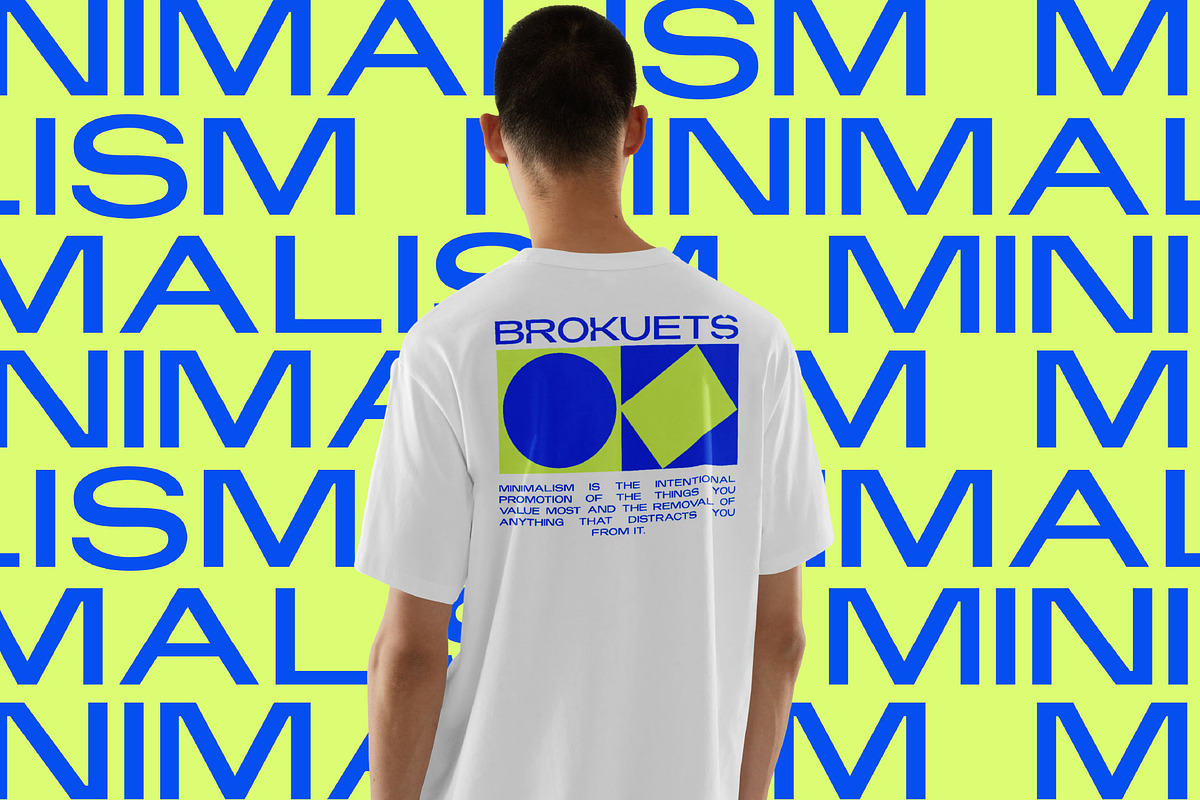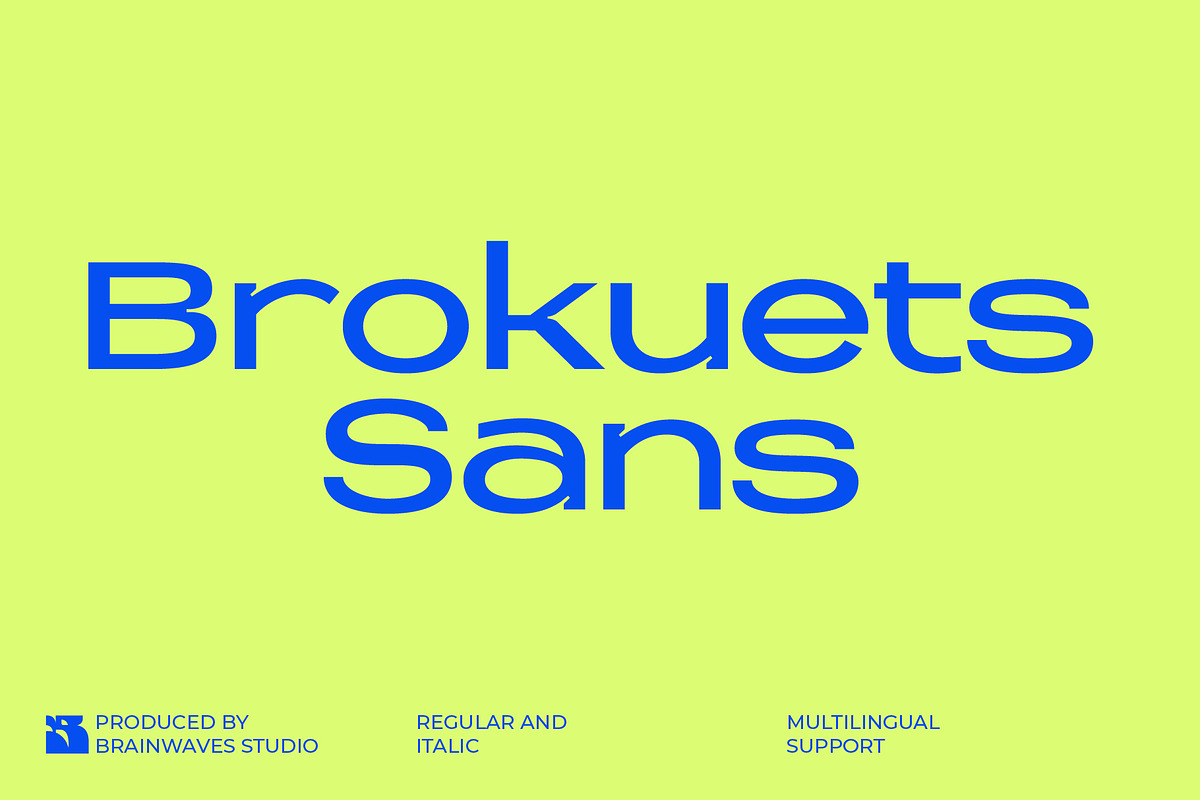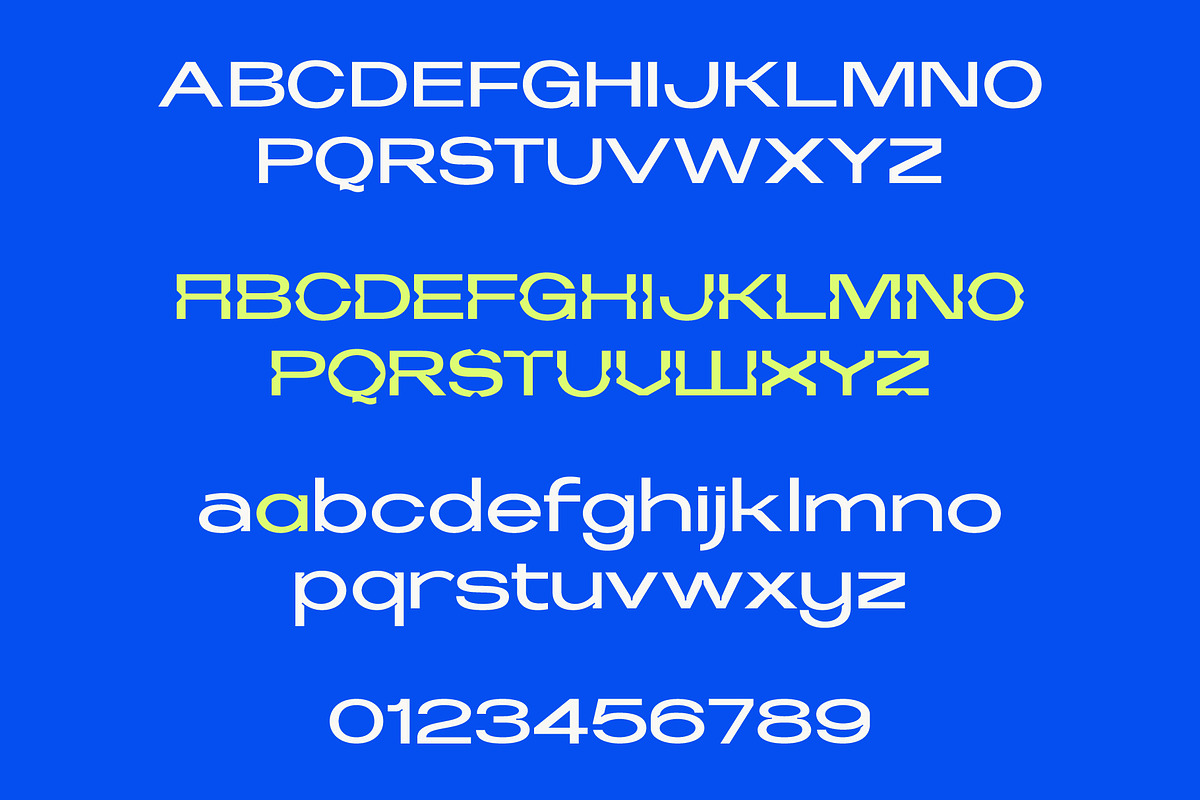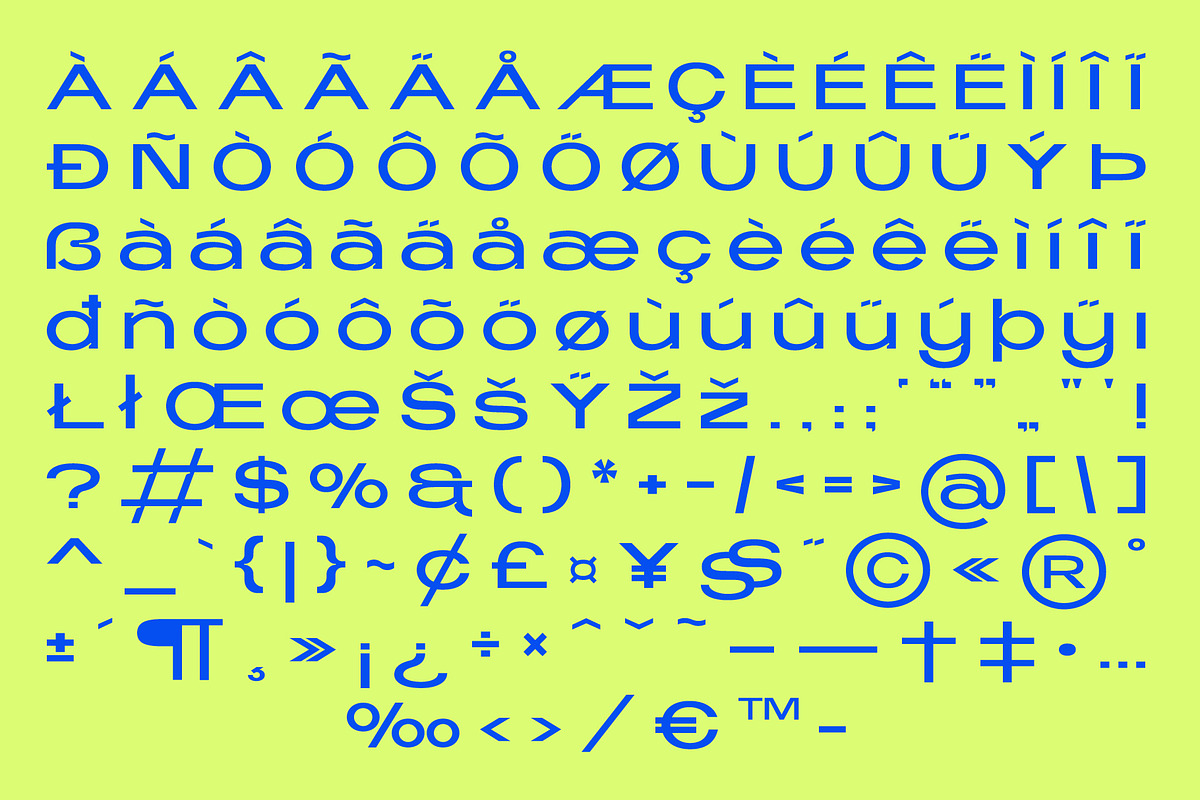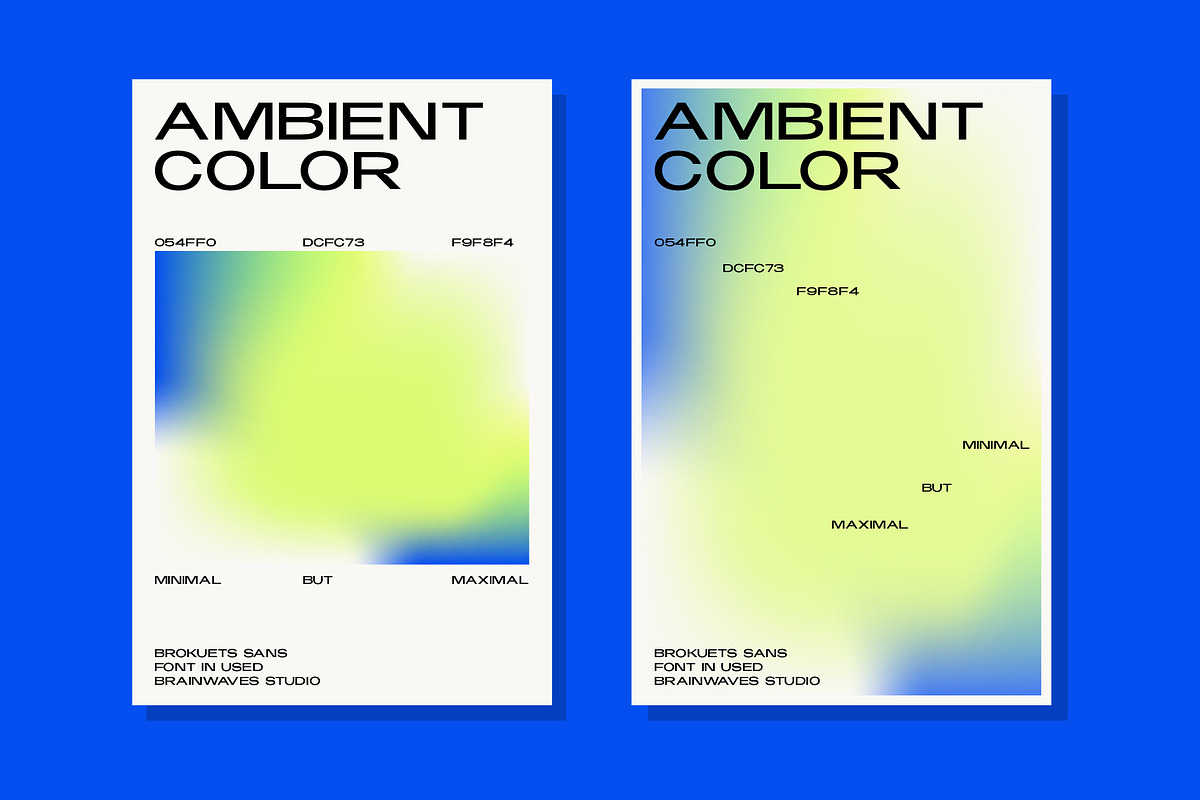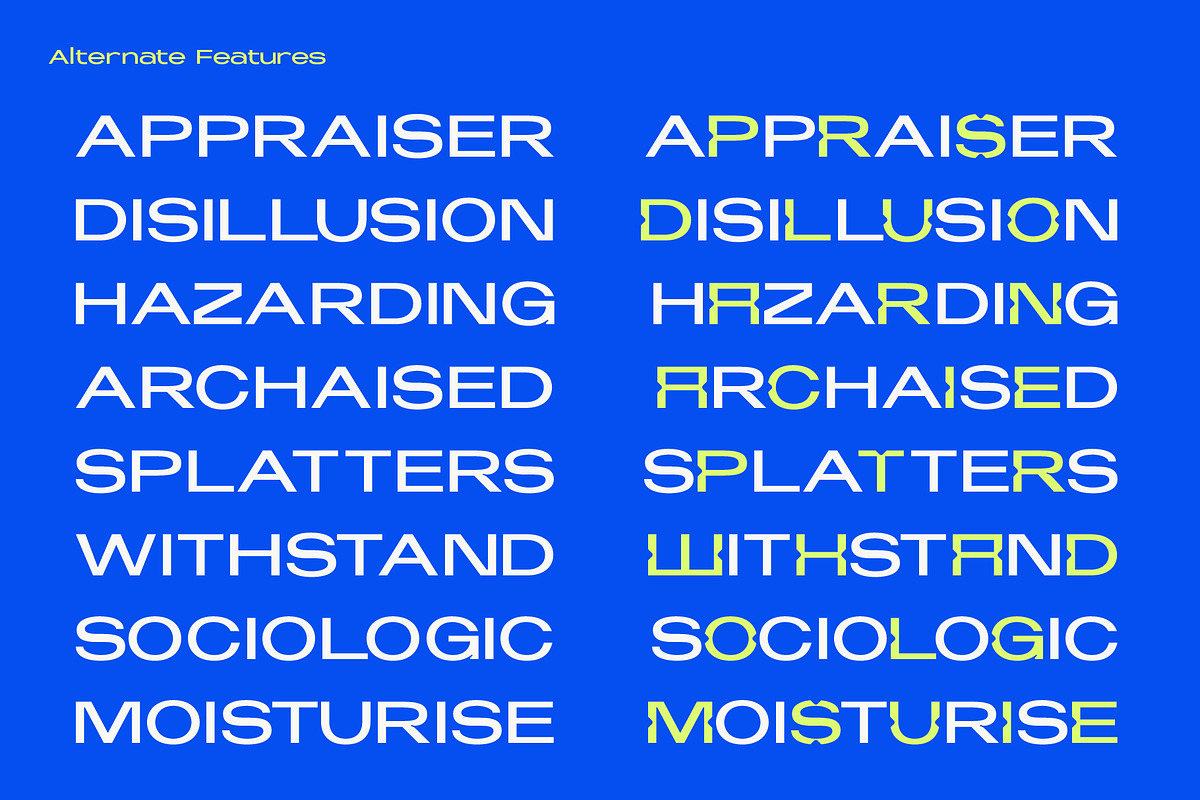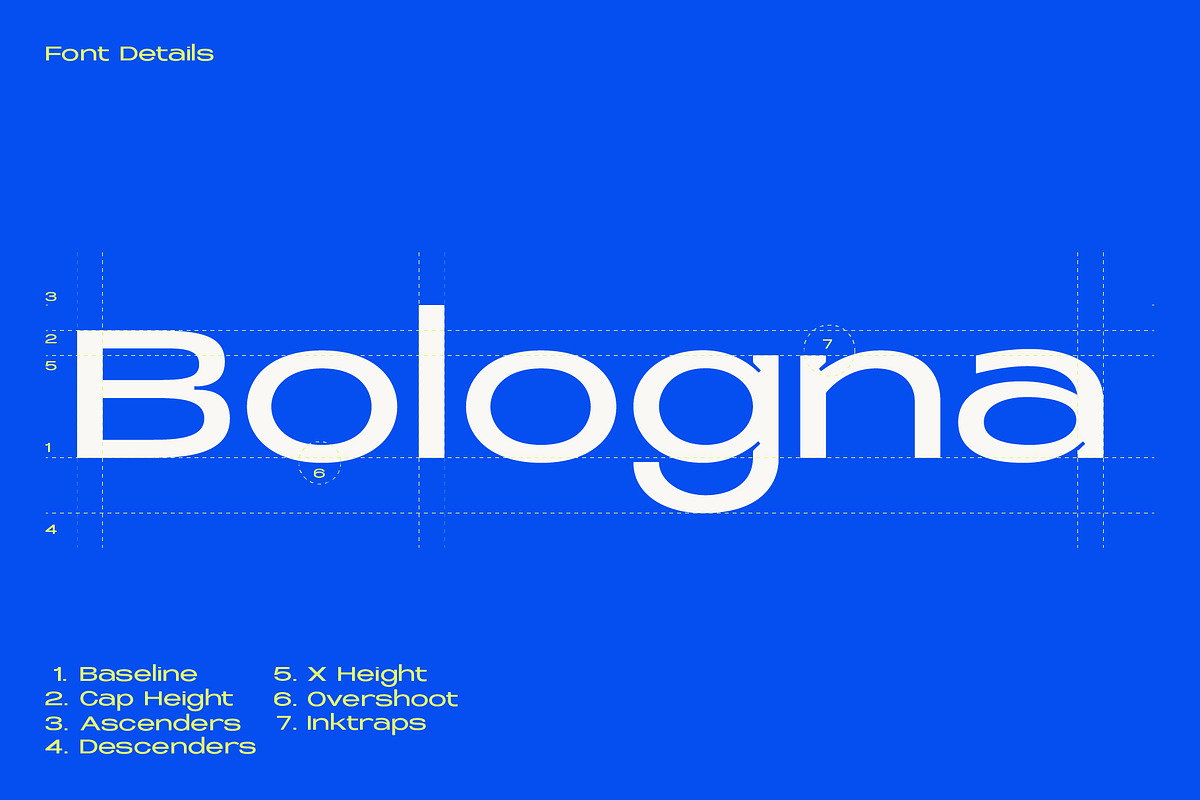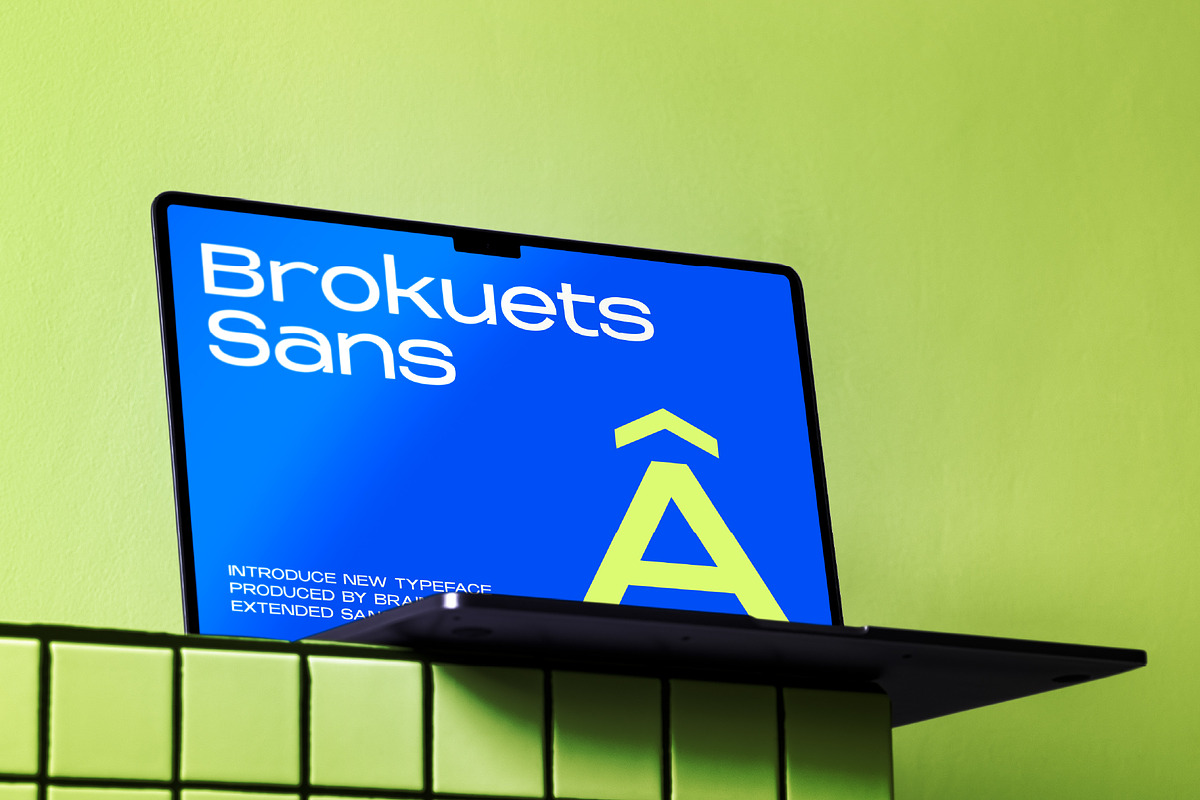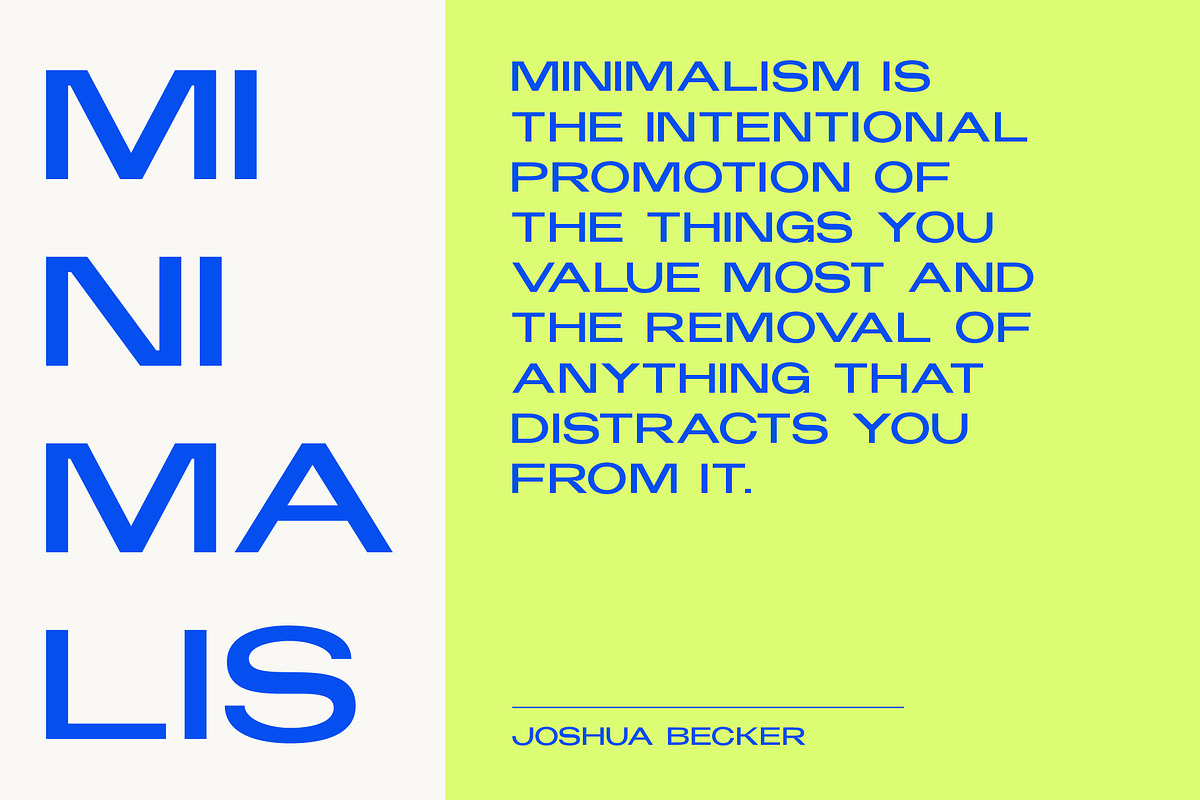
Brokuets – Extended Sans Serif
Brokuets Sans is a clean, modern sans serif font with a minimalist soul and a creative twist. Designed with clarity and purpose, it’s perfect for forward-thinking brands, tech startups, and fashion-forward visuals.
Each letterform is built on precision and proportion, blending soft curves with structured geometry. Whether you're designing sleek landing pages, print posters, or minimalist packaging, Brokuets Sans adds a fresh and polished voice to your visuals.
Features You’ll Love:
- Soft, rounded letterforms for a modern look
- Unique alternate glyphs to customize your style
- Regular & Italic styles for flexibility
- Clean readability, even at small sizes
- Full multilingual support
- Perfect for minimalists, UI designers, and modern creators who want clean, contemporary font design with a hint of character.
Suitable For
- Fashion and lifestyle packaging
- Instagram carousel posts
- Editorial layouts and posters
- Clean tech or SaaS landing pages
- Modern portfolio websites
- Branded t-shirts and merchandise
- Canva templates for creators